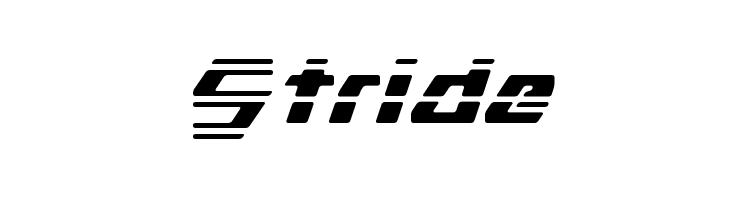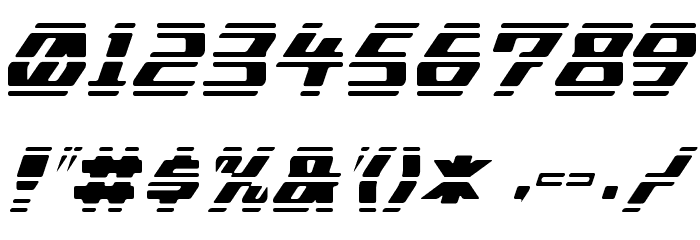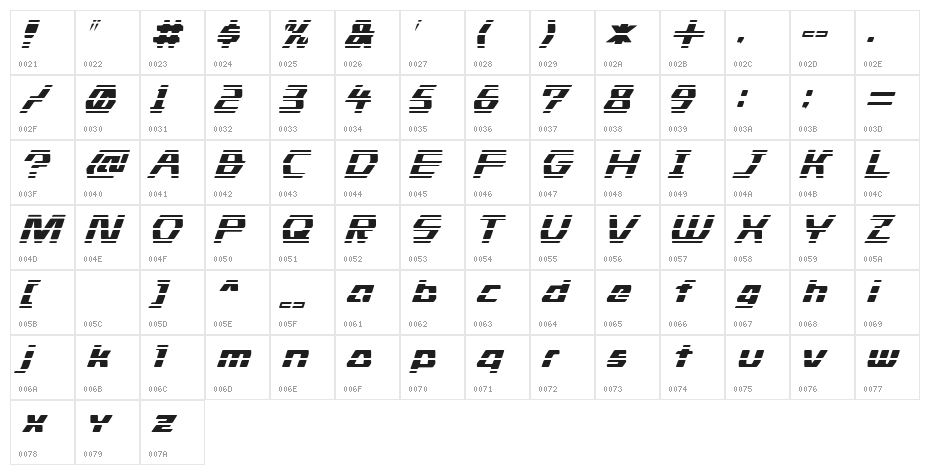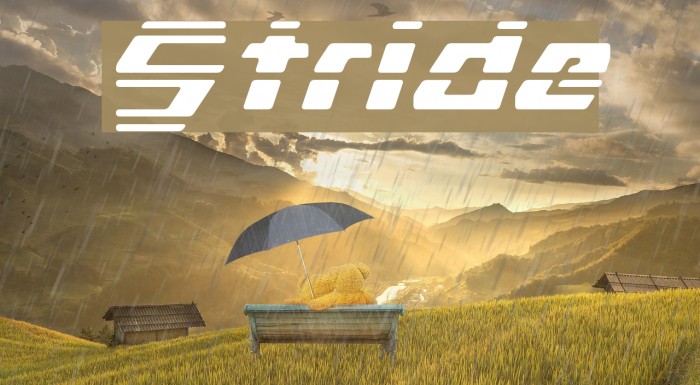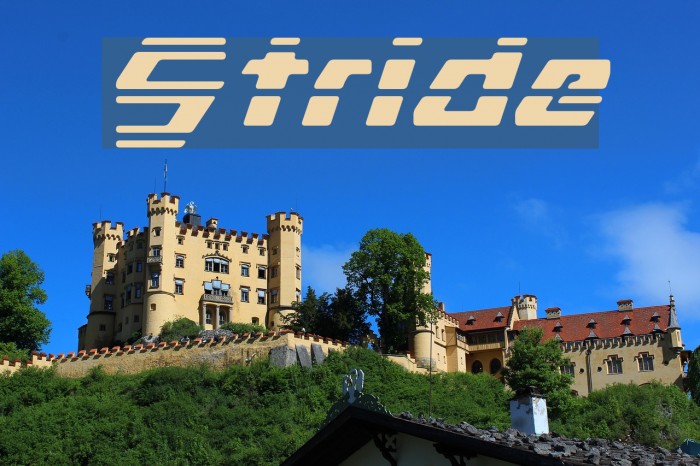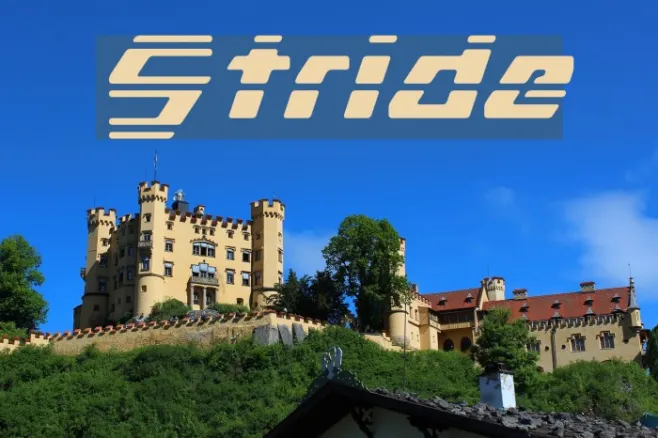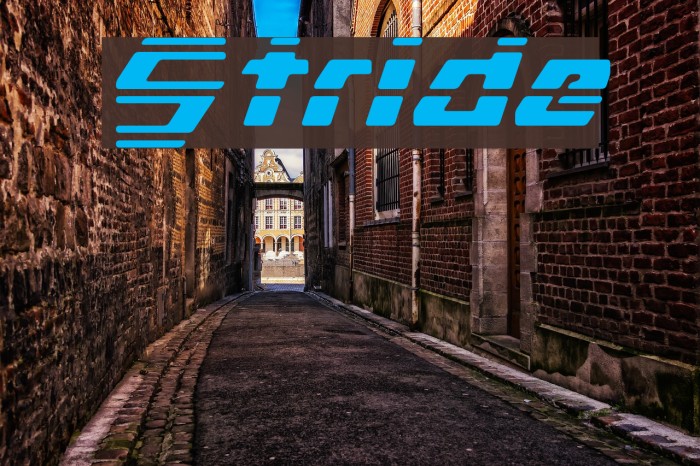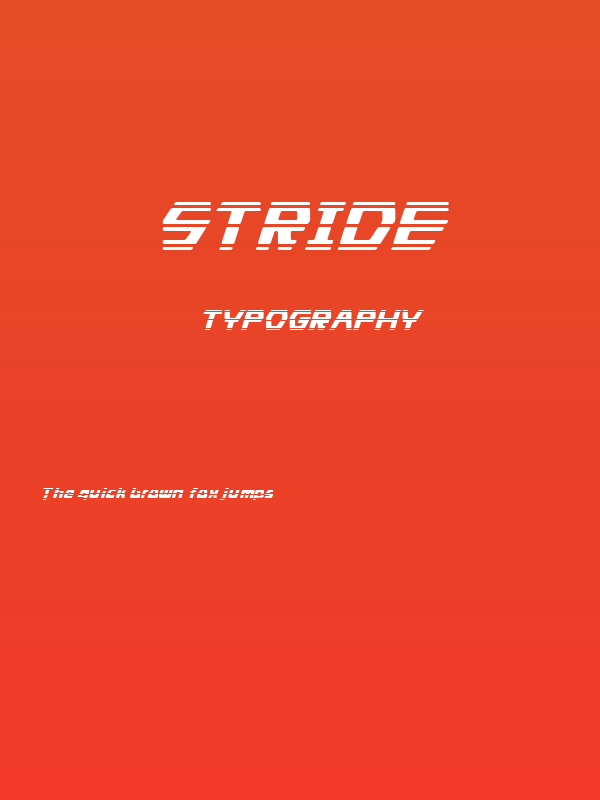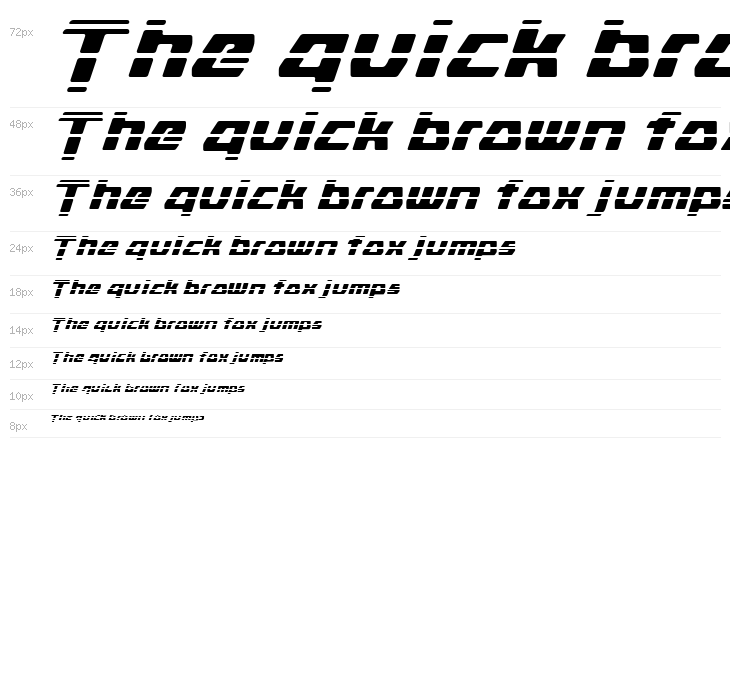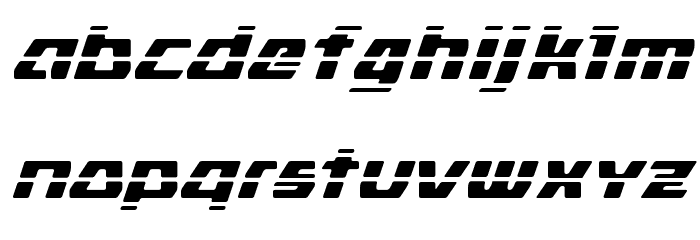
Stride Font
Stride Description
This font features a bold, futuristic design with a distinct slanted and segmented style. The characters are constructed with horizontal breaks, giving them a dynamic, fast-paced appearance. The uppercase and lowercase letters maintain a consistent geometric form, while the numerals and special characters follow the same segmented pattern. The overall look is reminiscent of digital displays or racing themes, making it suitable for projects that require a modern, tech-savvy aesthetic.
| Proposed Projects | Ideal for technology branding, sports team logos, video game titles, and futuristic-themed posters. |